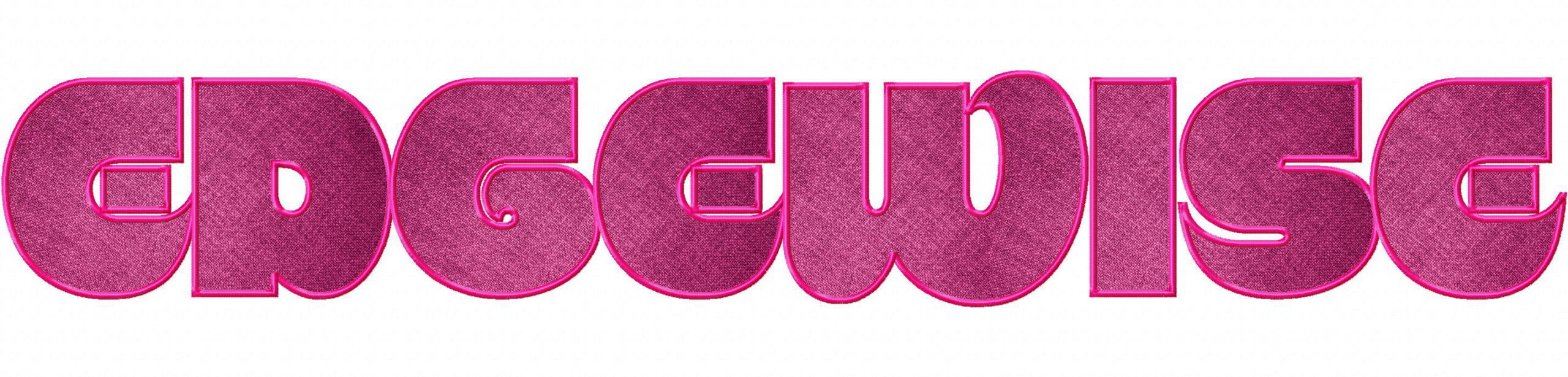
Add this striking design to any project that needs a bit of edgy fun!
The Chunk Major Machine Embroidery Applique Font Set includes all Uppercase Letters, Lowercase Letters and Numbers in all of the following sizes: 3″ 4″ & 5″